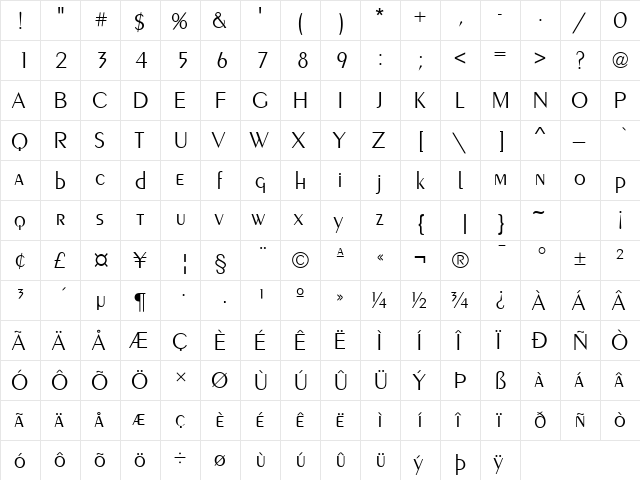
French Vogue Regular
Design Context for French Vogue Typeface
French Vogue takes a measured approach to typography — its balanced proportions and neutral character make it a reliable workhorse for both digital and print work.